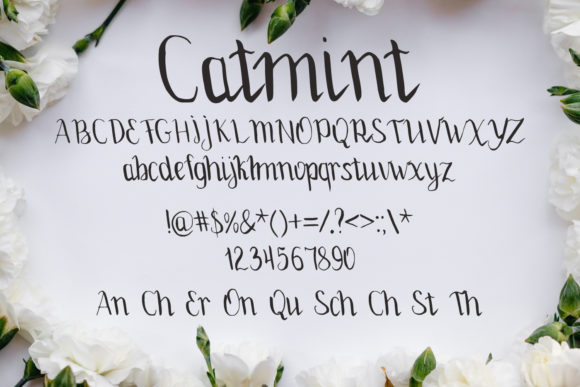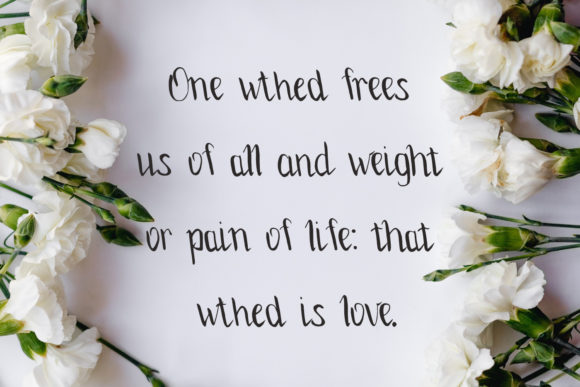
The Catmint Font: A Delicate and Elegant Handwritten Masterpiece
I’ll never forget the moment I stumbled upon the Catmint font. I was working on a project for a client who wanted a elegant and sophisticated look, but I was struggling to find the right font. I had scoured the internet, tried out countless fonts, but nothing seemed quite right. That was until I discovered Catmint. Its delicate and elegant handwritten style immediately caught my eye, and I knew I had found the perfect fit.
• ✨ Delicate and elegant style: Catmint’s handwritten style is perfect for projects that require a touch of sophistication.
• ✅ Well-rounded letters: The font’s letters are distinct and well-rounded, making it easy to read and understand.
• 💕 Incredibly versatile: Catmint can be used for a wide range of projects, from wedding invitations to branding and packaging.
Of course, no font is perfect, and Catmint is no exception. Here are a few quirks to keep in mind:
• 🤔 Limited use in very small sizes: While Catmint is generally clear and readable, it may not be the best choice for very small font sizes (e.g., 8-10pt).
• ⚠️ Some letters may require adjustment: Depending on the word or phrase, some letters may require adjustment to ensure proper spacing and alignment.
The Story Behind Catmint
Catmint was designed by a talented typographer who wanted to create a font that was both elegant and approachable. Inspired by traditional handwriting, Catmint’s creator aimed to craft a font that would be perfect for a wide range of design projects. While the font’s exact origins may be unclear, its beauty and versatility have made it a favorite among designers and crafters.
What is the Catmint font best used for? Catmint is a versatile font that’s perfect for a wide range of design projects, including wedding invitations, branding, packaging, and more.
Is Catmint suitable for body text? While Catmint is a beautiful font, it’s best suited for headlines and titles. For body text, you may want to choose a font that’s clearer and more readable.